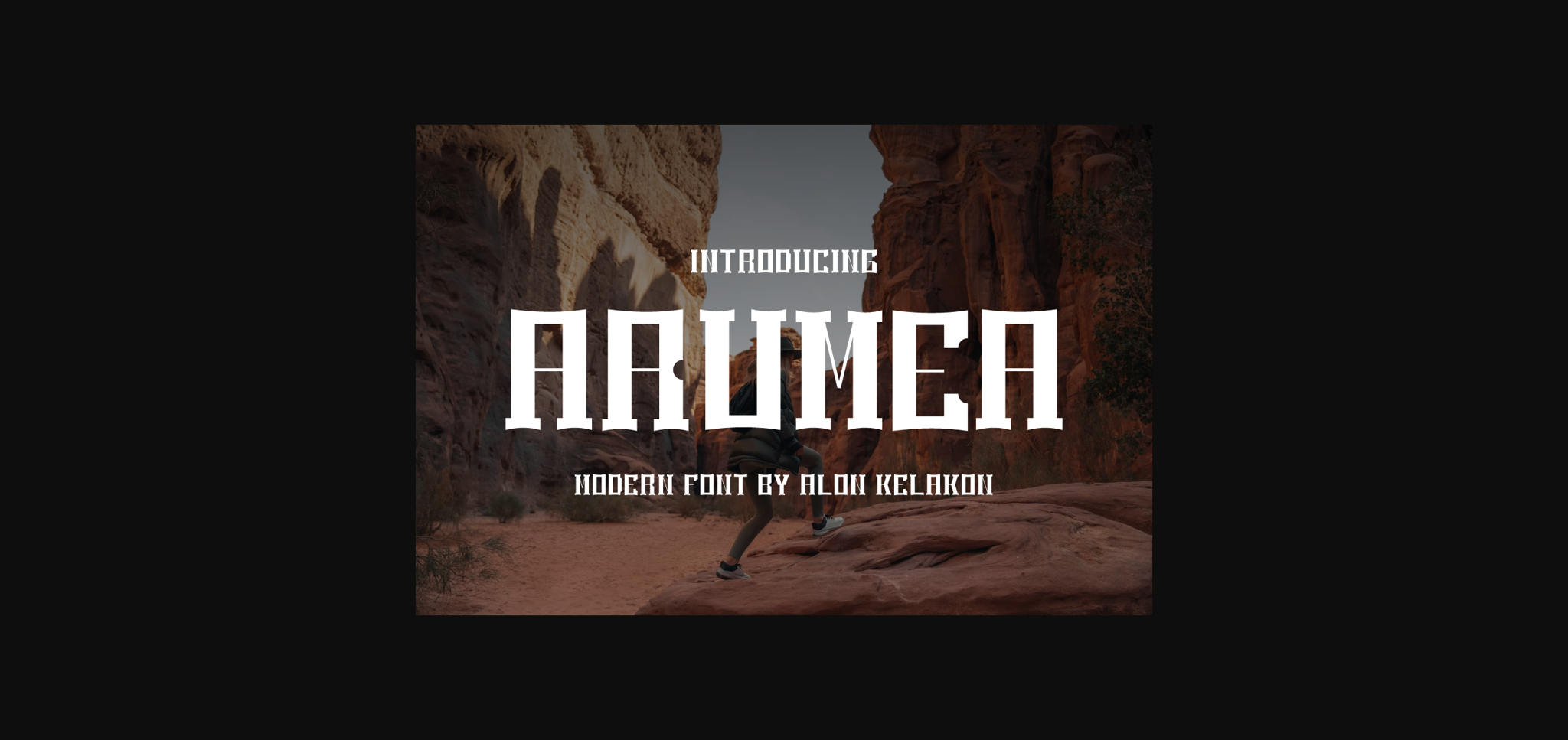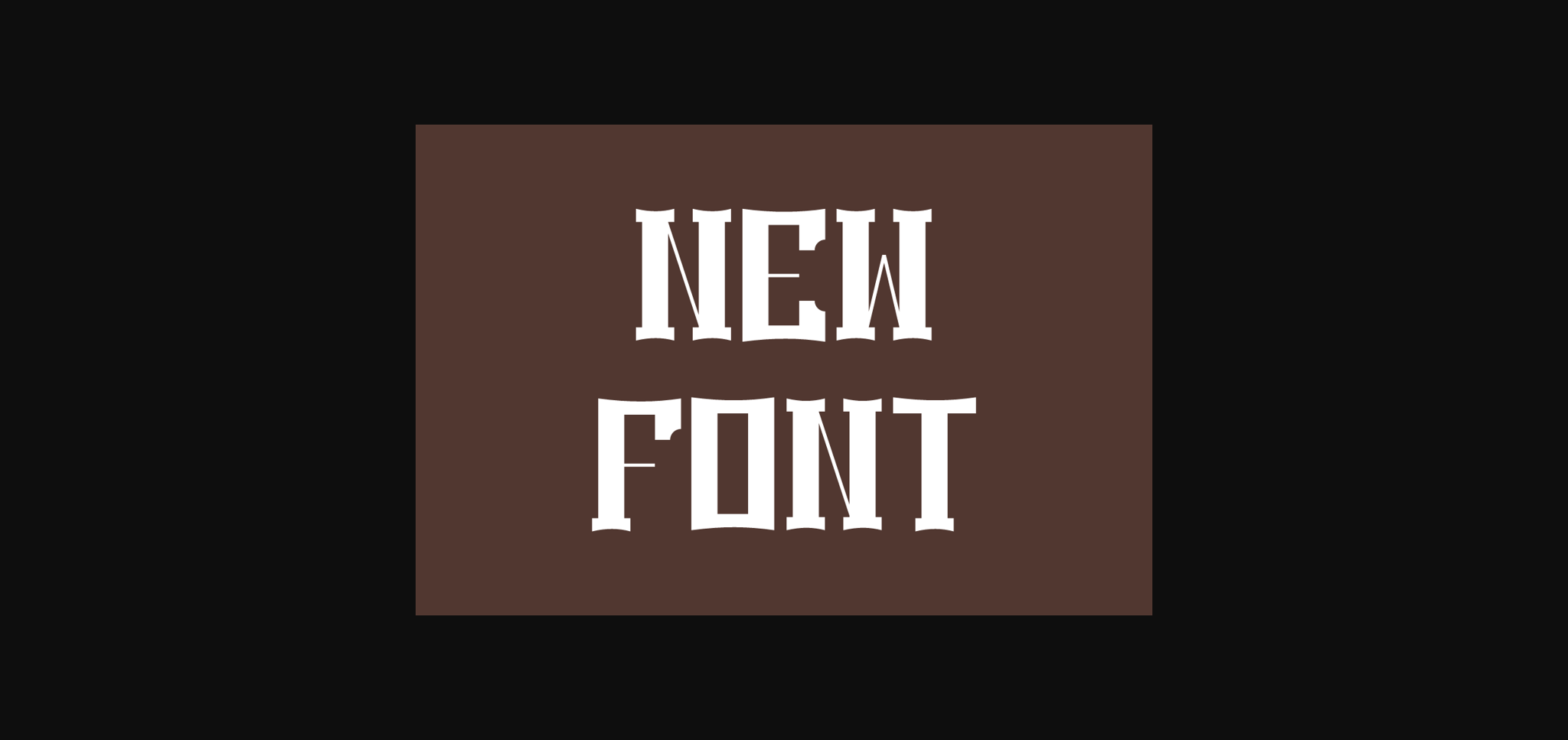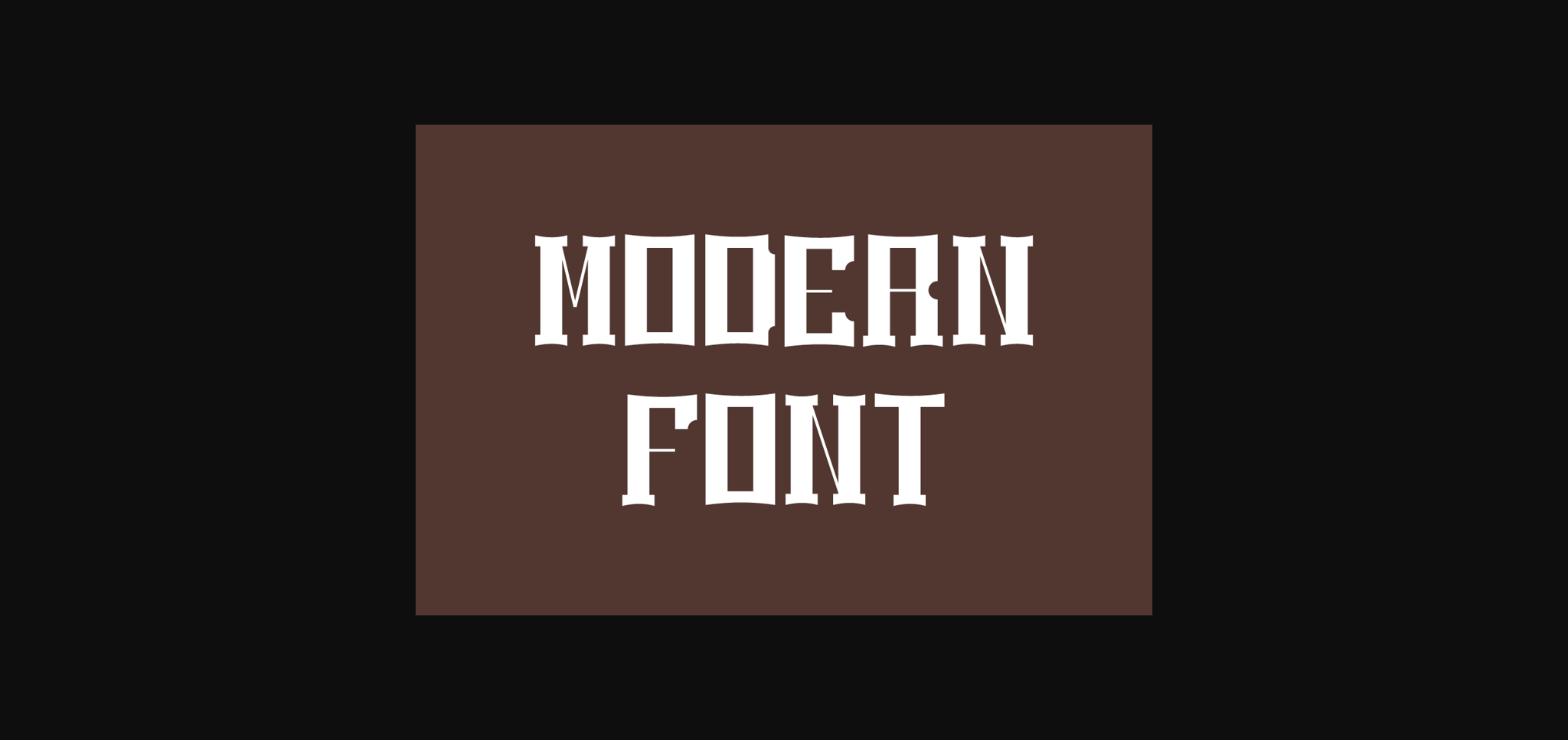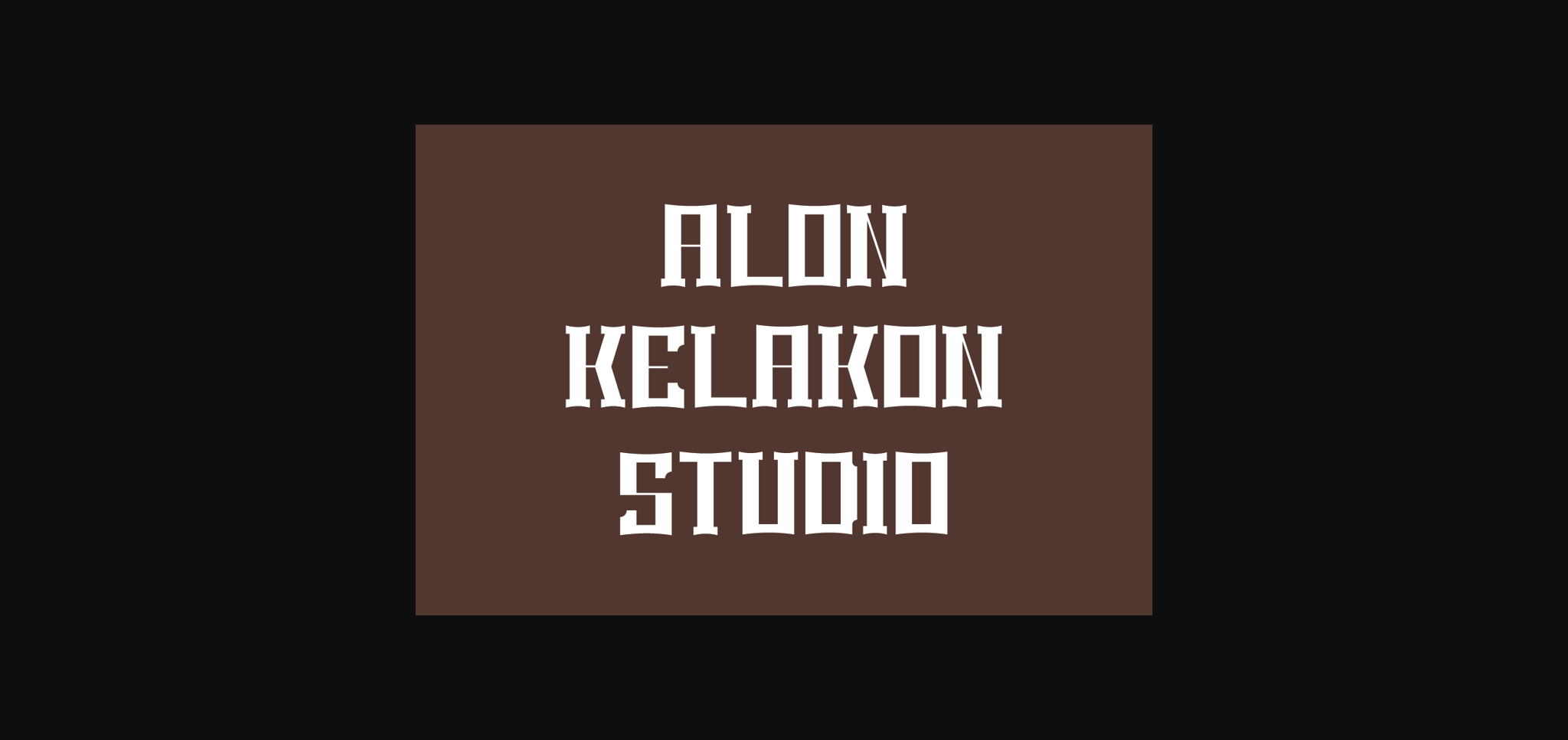
About Arumea Font
Arumea is a wavy, whimsical and uniquely shaped sans serif font. Trendy and stylish, this font will elevate each of your creations. Arumea is PUA encoded which means you can access all of the glyphs and swashes with ease!